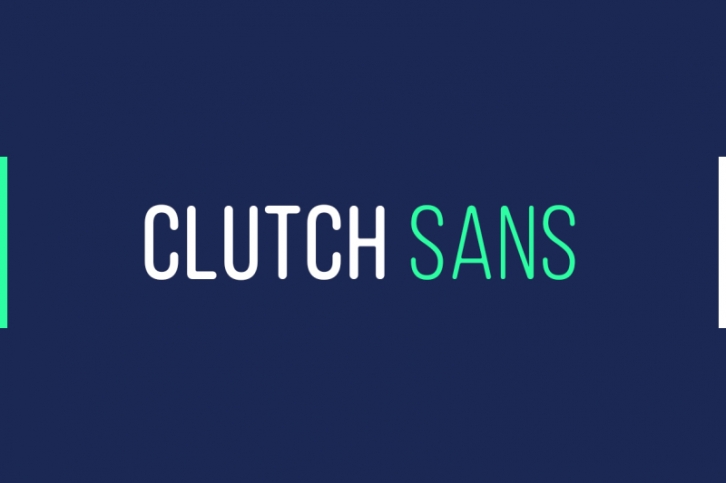
Clutch Sans is a condensed, sans serif with rounded terminals, set entirely in capitals. It's a serious font with a little touch of positive energy and friendly warmth. It's a modern, dynamic and fun typeface that's simple, clean and super functional.
Clutch Sans is a family of 7 weights, each with a corresponding oblique. Each weight contains multilingual characters for latin languages and Russian.